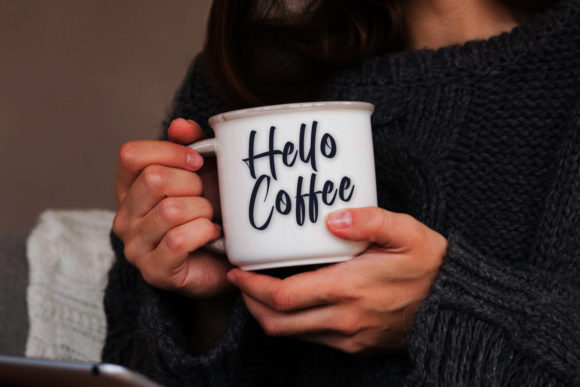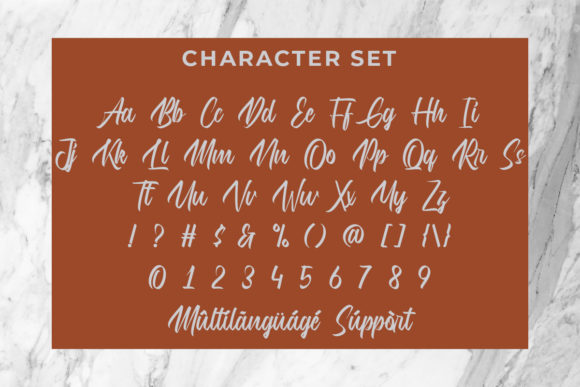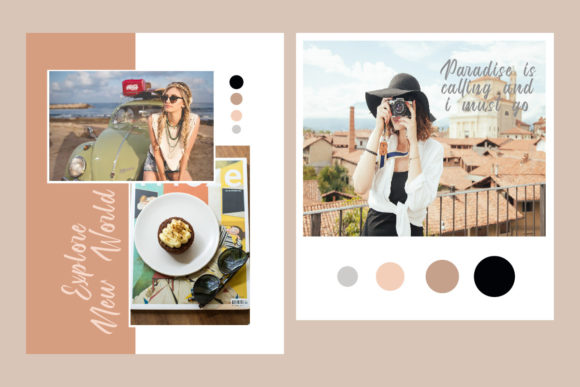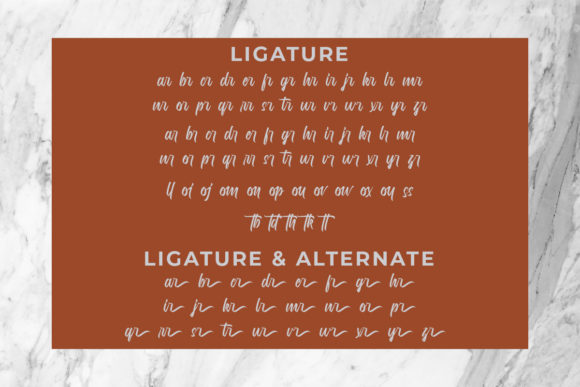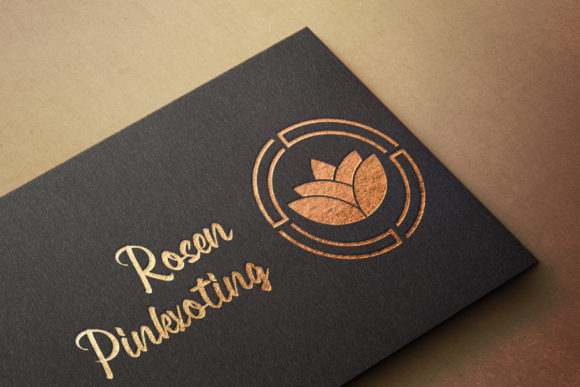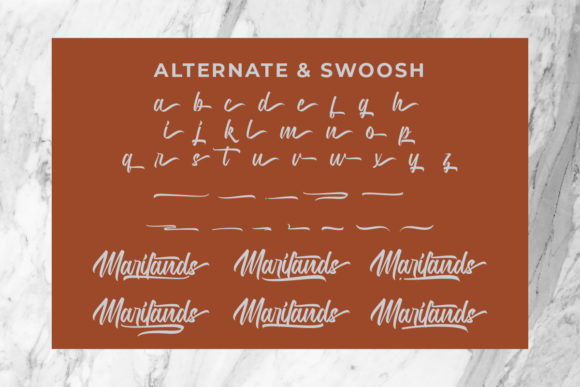
Introduction to Marilands Font
Marilands is a modern handwritten font that is readable, bold and stylish.
It is defined by smooth curves and is perfect for fashion branding or editorial designs Add it confidently to your projects, and you will love the results.
Key Features of Marilands Font
Why Choose Marilands Font?